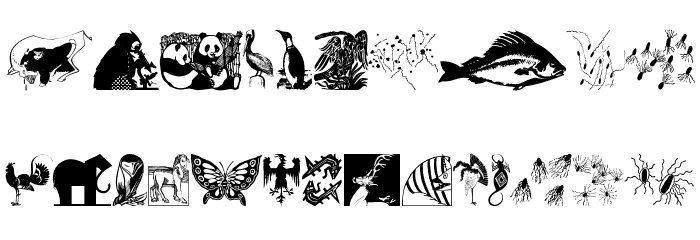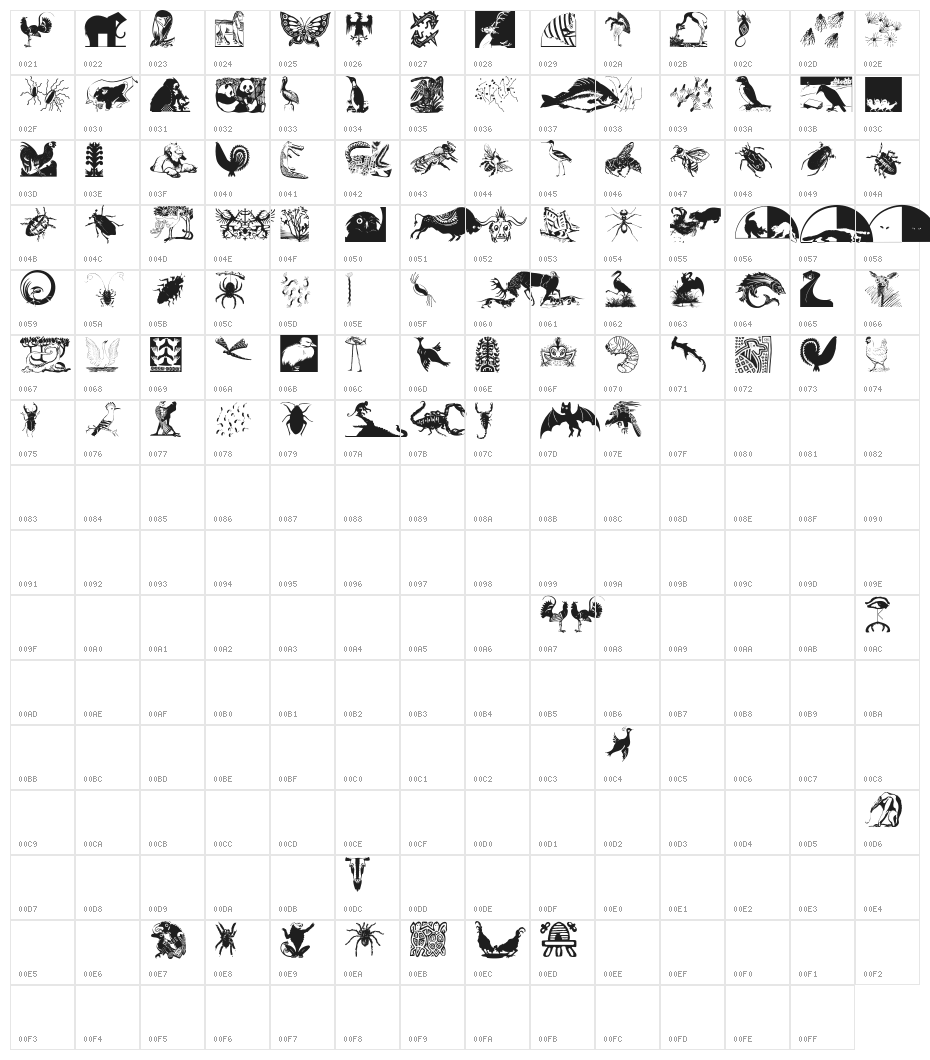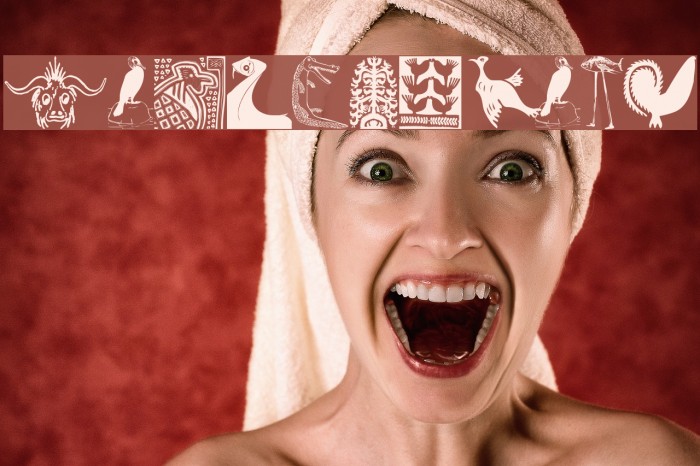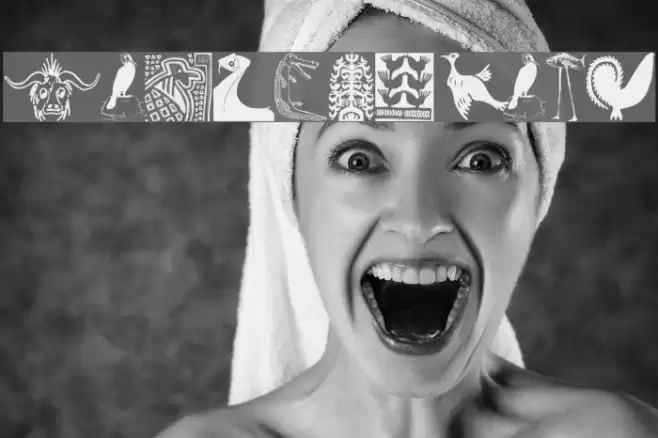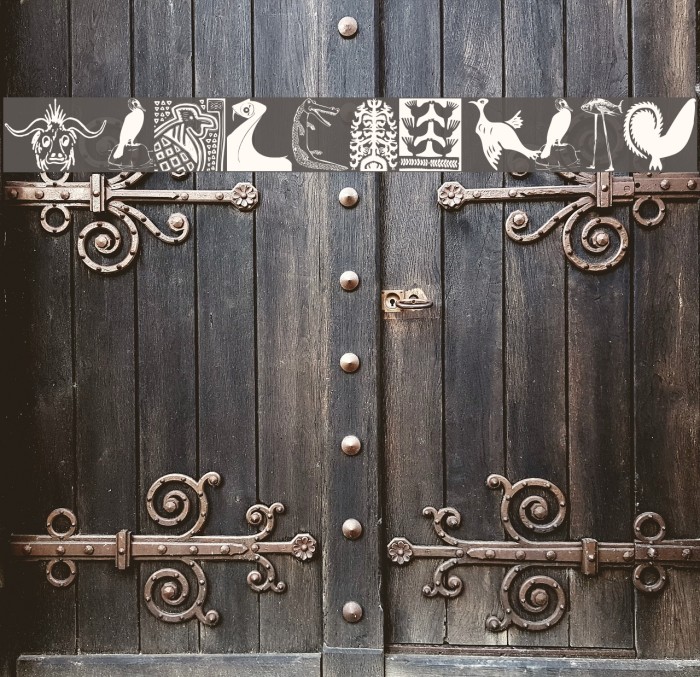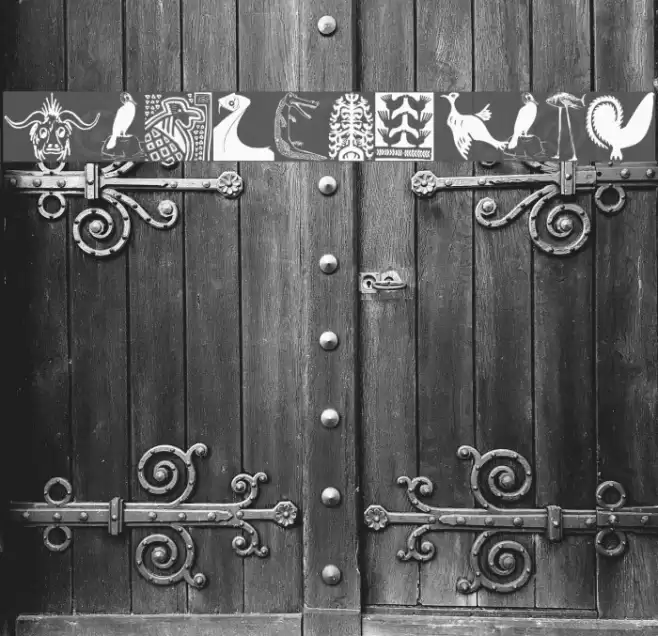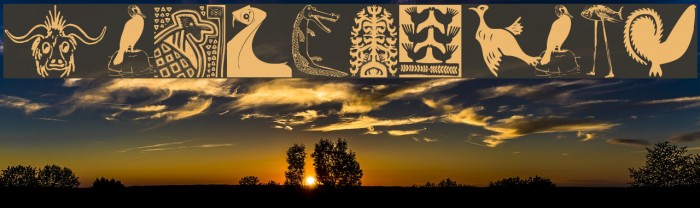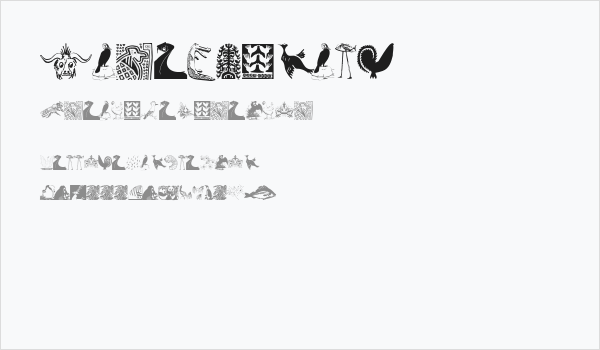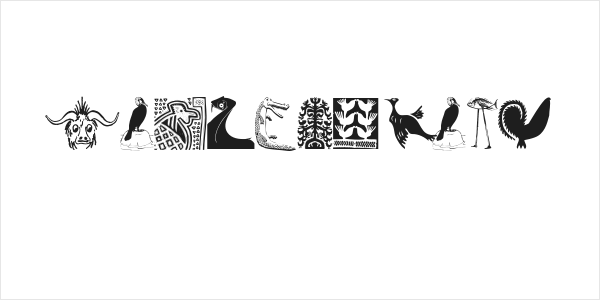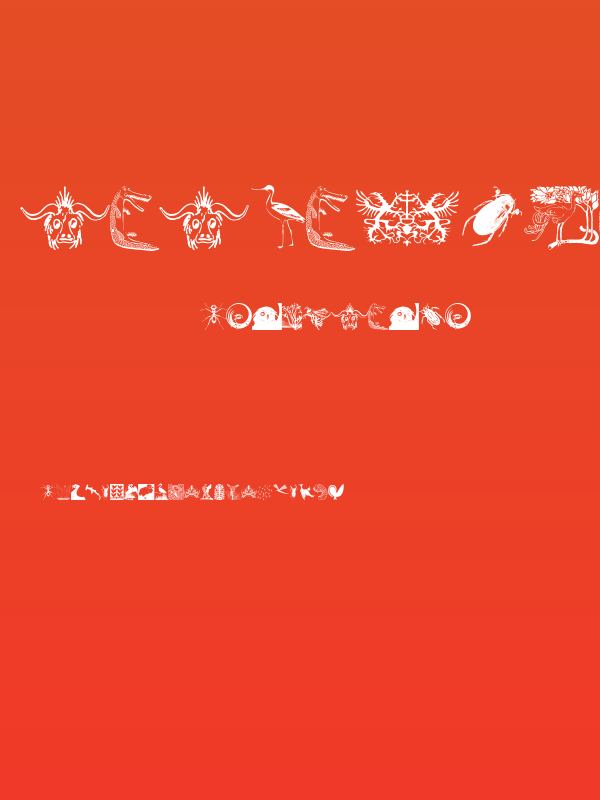
RareAnimals Font
RareAnimals Description
A decorative display font featuring detailed black-and-white illustrations of rare and exotic animals for each character, with each glyph uniquely representing a different animal or creature in a variety of artistic styles.
| Overall Style | Decorative, Artistic, Playful |
| Use Case | Logos, Headlines, Posters, Themed graphics |
| Proposed Projects | ChildrenΓ’β¬β’s books, educational posters, wildlife awareness campaigns, themed invitations, creative branding. |